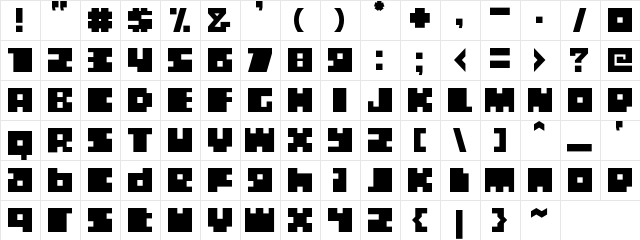
Boxtoc Regular
Design Context for Boxtoc Typeface
Boxtoc is a composed and adaptable typeface that performs quietly and consistently across a wide range of design contexts.
Pro Tip: Use Boxtoc in both headline and body roles to test its range before committing to a single application.